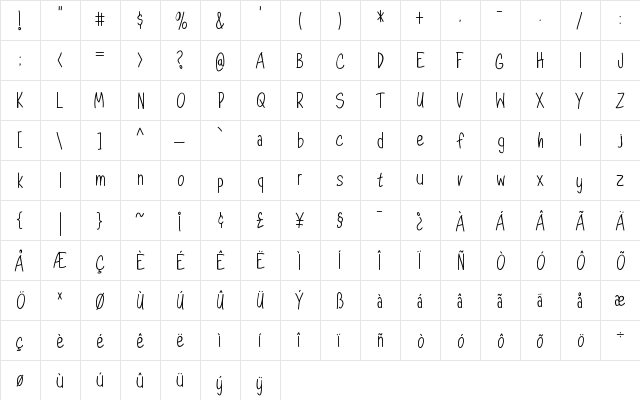
Dorathy - Personal Use Only Regular
Design Context for Dorathy - Personal Use Only Typeface
Dorathy - Personal Use Only takes a measured approach to typography — its balanced proportions and neutral character make it a reliable workhorse for both digital and print work.